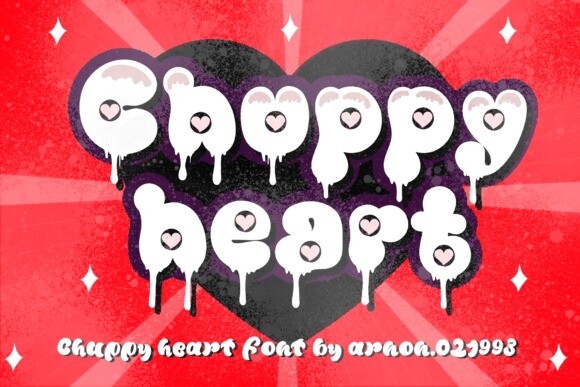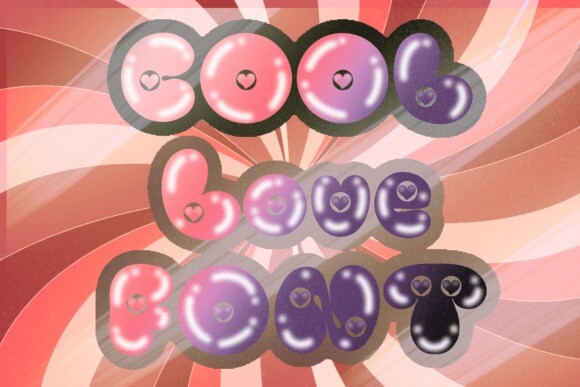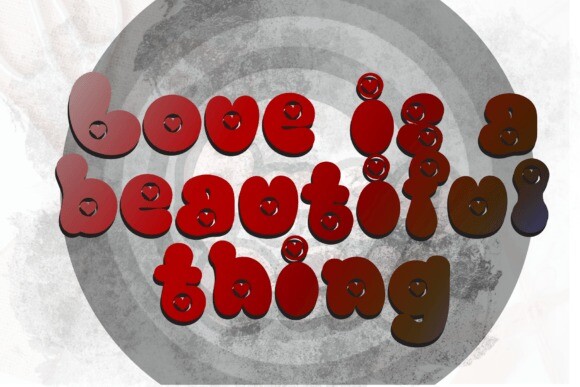
Chuppy Heart Font
Chuppy Heart Font, This font so cute for your project wedding ,greeting card ,logos, banding material business card,quotes ,posters, shirts,mugs and more!